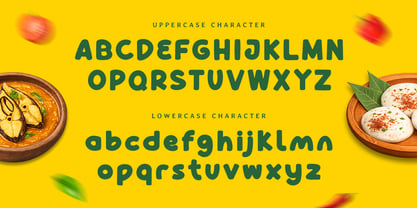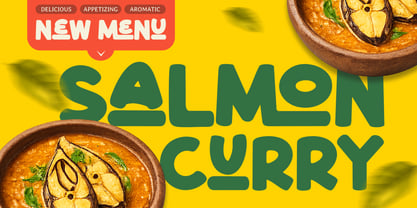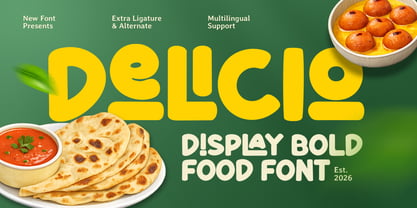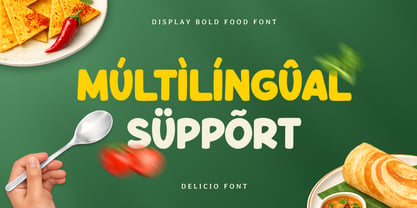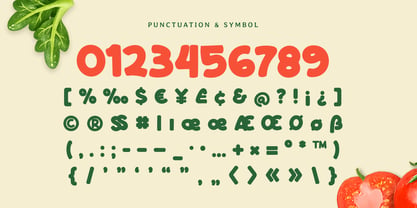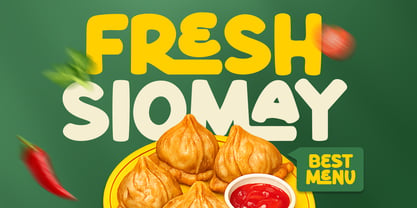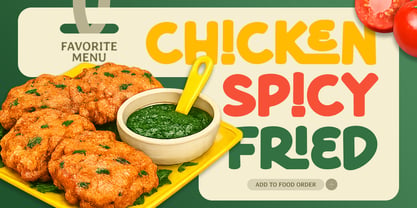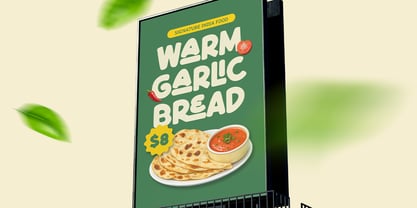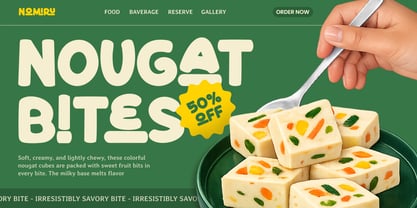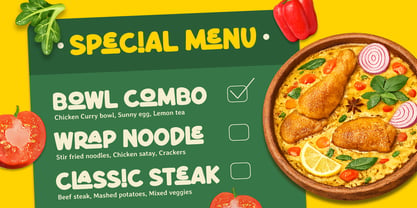
Delicio
Die Schriftfamilie Delicio wurde von Zamroni Hamzah entworfen und von Sensatype Studio veröffentlicht. Delicio enthält 1 Stile. Mehr über diese Familie
DELICIO is a display bold food font designed to bring irresistible flavor and playful energy to your typography. With thick, confident strokes and a friendly personality, this typeface creates a mouthwatering visual tone that feels vibrant, inviting, and instantly attention-grabbing.
Built for food-focused branding, DELICIO works perfectly across restaurant logos, café menus, product packaging, snack labels, posters, signage, social media promotions, and digital banners. Its bold display structure ensures headlines stand out clearly, helping food brands communicate delicious personality and memorable identity across both print and digital layouts.
Whether you’re launching a food brand, designing restaurant promotions, creating snack packaging, or building cheerful café visuals, DELICIO delivers a bold typographic flavor that makes every headline look fresh, fun, and crave-worthy.
Inspiration Behind DELICIO
DELICIO is inspired by modern food packaging typography and playful restaurant branding—where bold shapes and friendly rhythm make products feel more appetizing and approachable. The design focuses on energetic forms and strong visual balance to support food marketing with a cheerful, brand-ready personality.
DELICIO Font Features:
• Bold display letterforms with playful food-brand character
• Perfect for restaurant branding, menus, and packaging design
• Strong readability for product names and promotional headlines
• Friendly shapes for inviting and appetizing typography
• Uppercase, lowercase, numerals, and punctuation included
• OpenType features for polished professional typesetting
Perfect For
• Restaurant logos, café branding, and food brand identity
• Menu headlines, specials boards, and promotional signage
• Packaging, labels, stickers, and snack product branding
• Posters, banners, and in-store marketing visuals
• Social media promotions and food campaign graphics
Multilingual Support
Make your food branding look irresistibly bold with DELICIO—a display food font built for delicious visual impact. 🍔✨